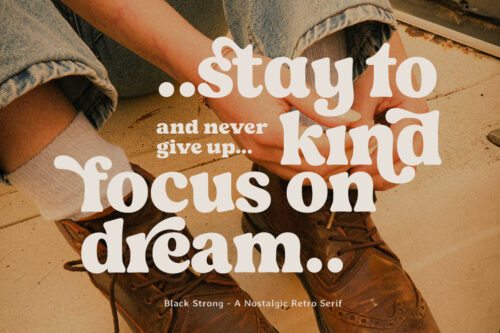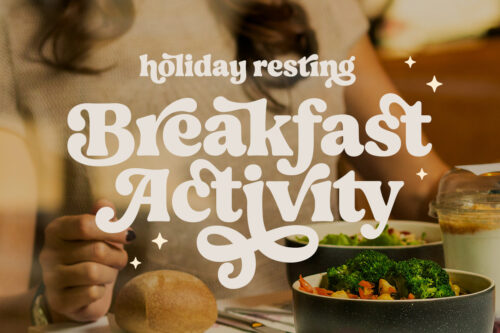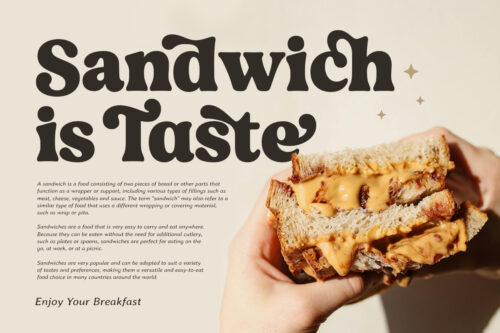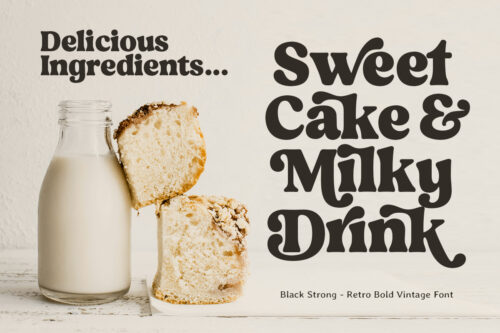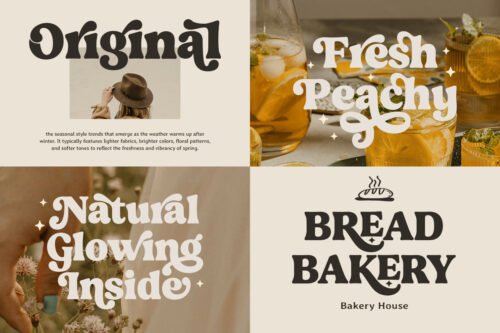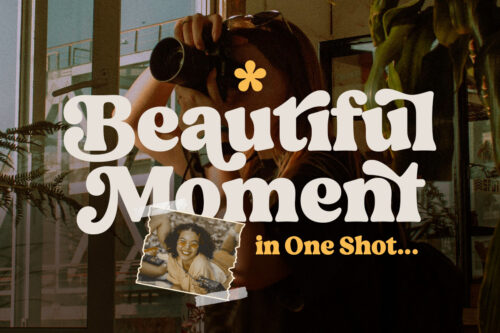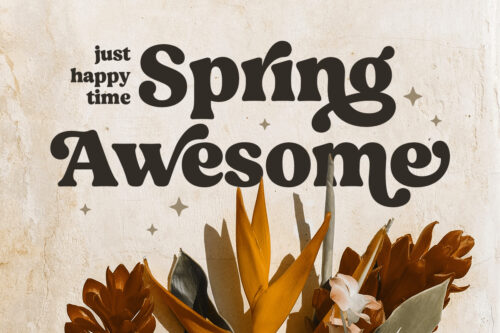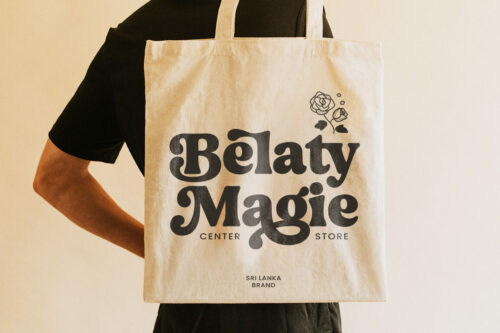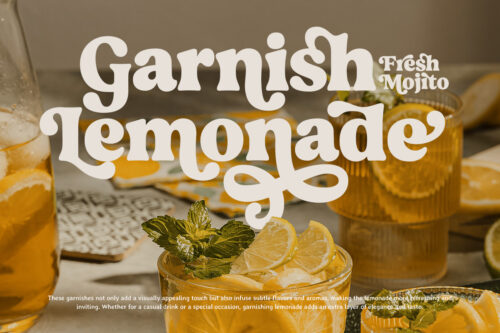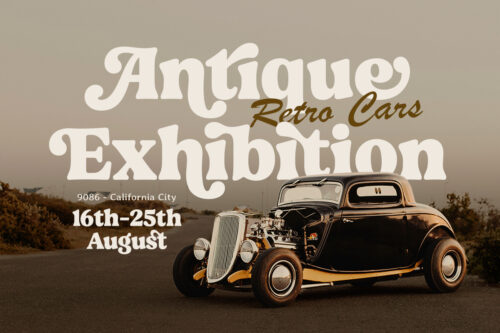
Black Strong is a soft retro serif font packed with modern and classy style, complete with access to your OpenType features to access a large selection of alternative letters and ligatures, your preferred choice of uppercase and lowercase variations to achieve a retro and vintage look.
Black Strong is perfect for branding projects, Logo design,Branding, packaging, magazine titles, advertisements, headline, postcards and much more.